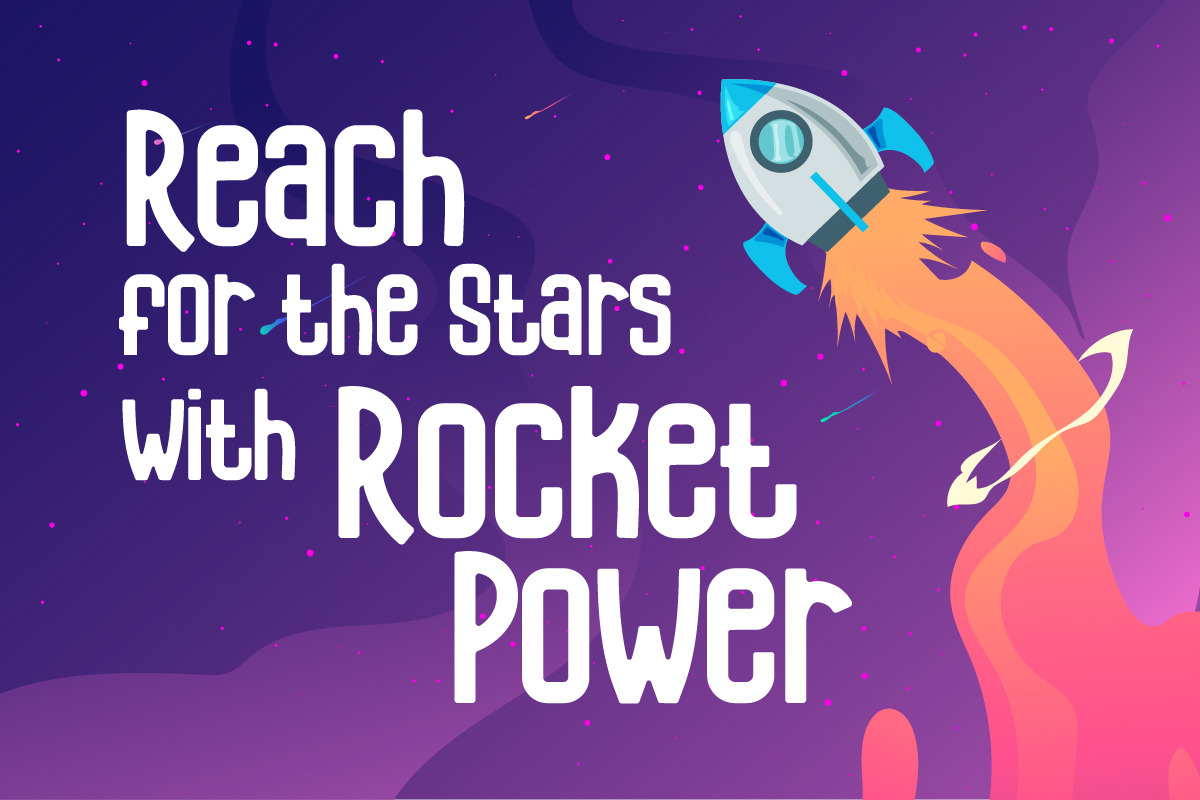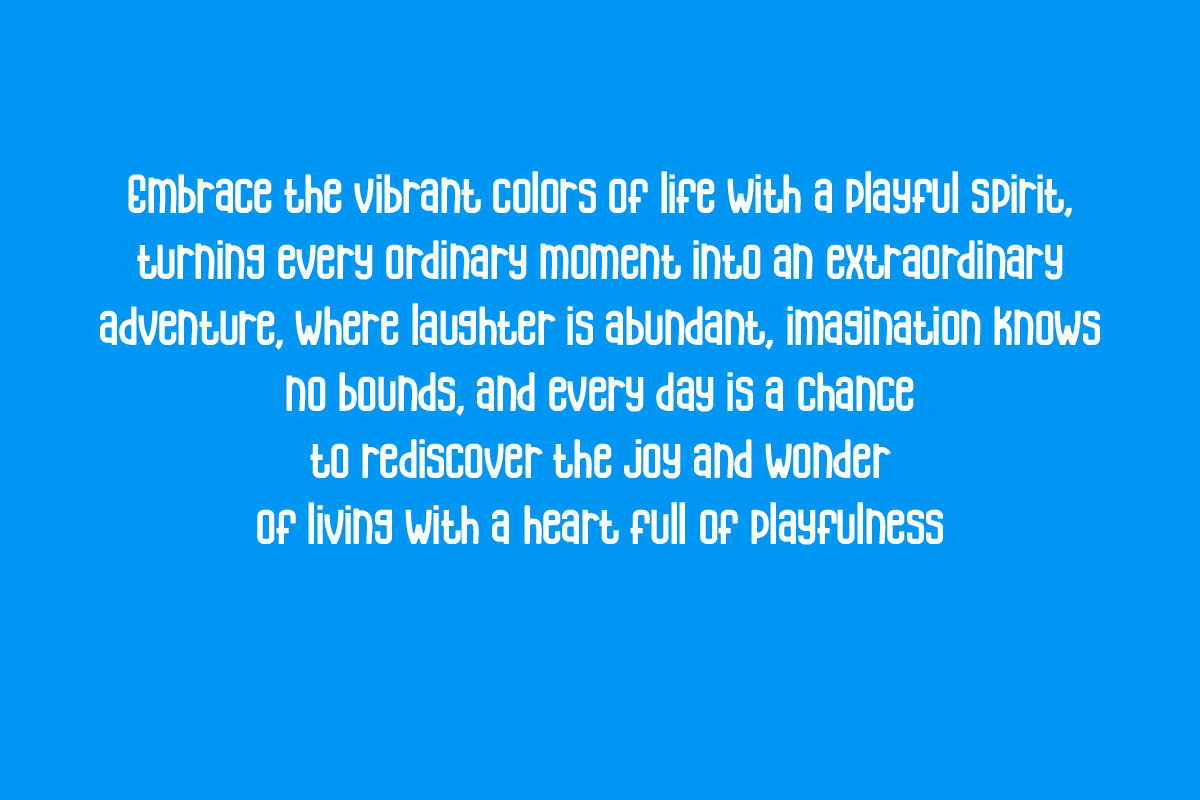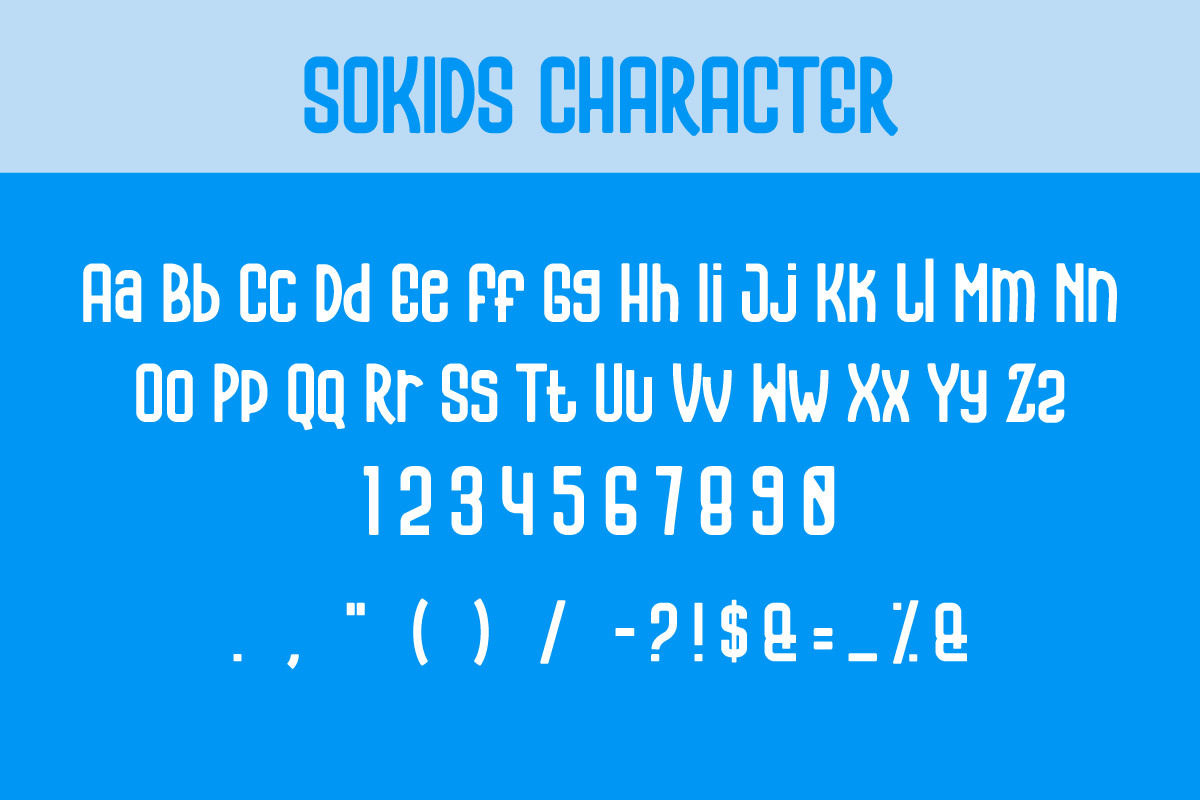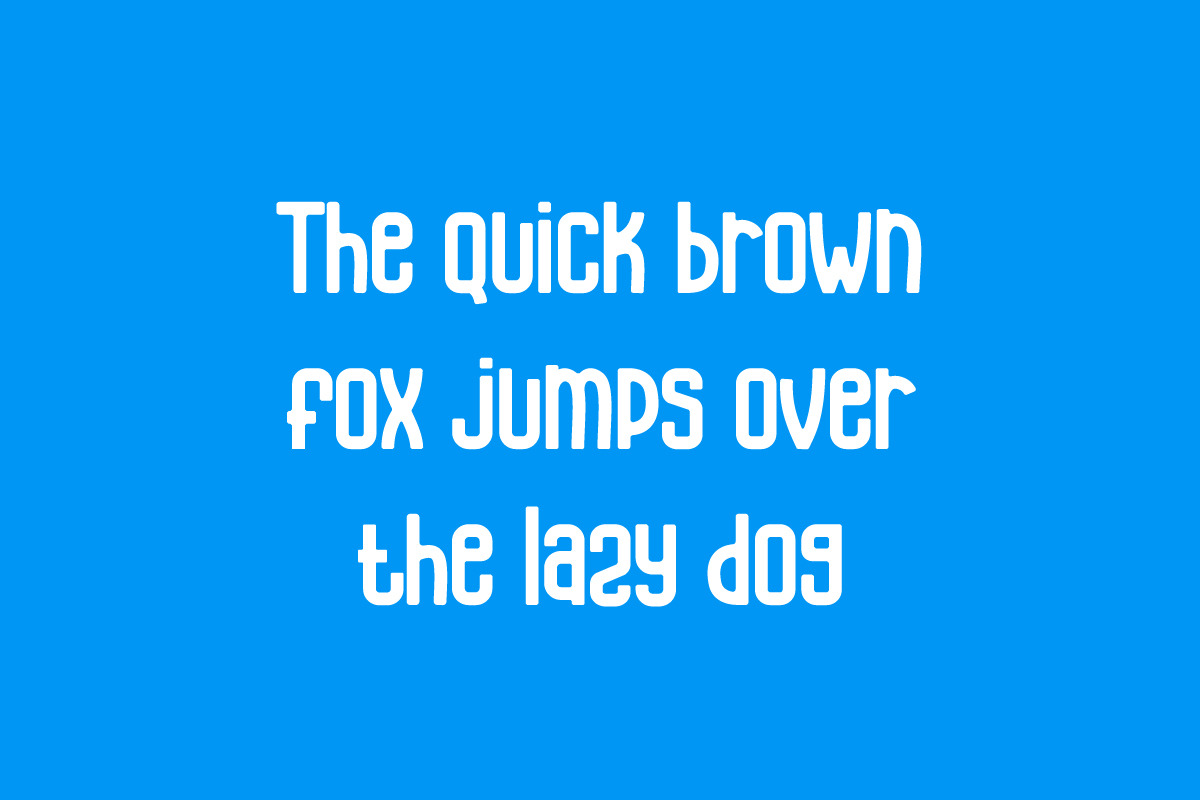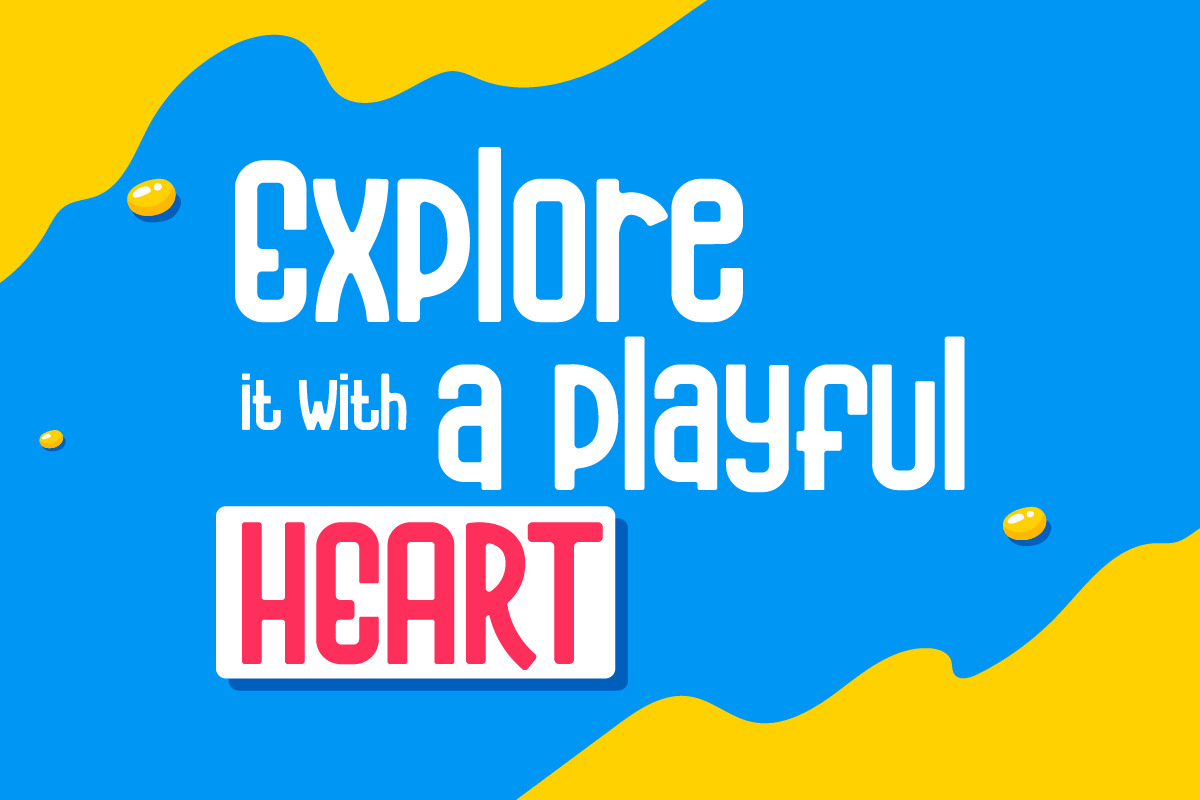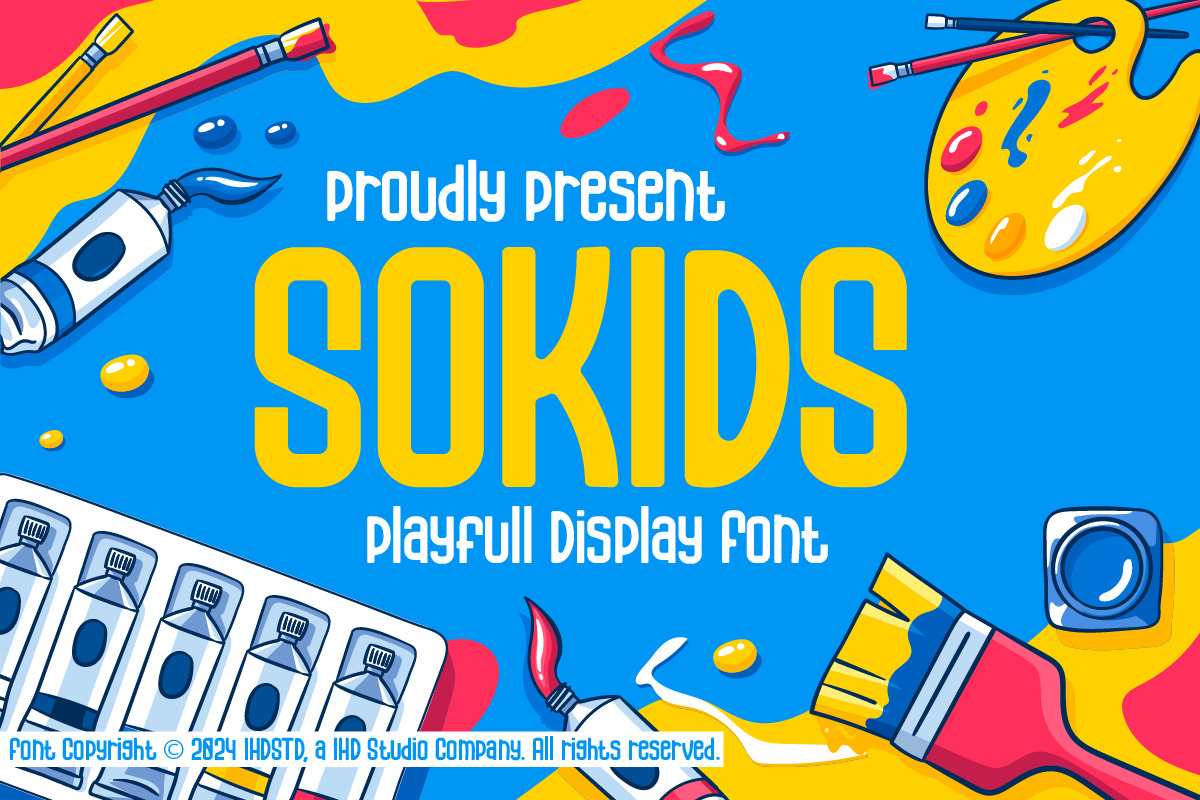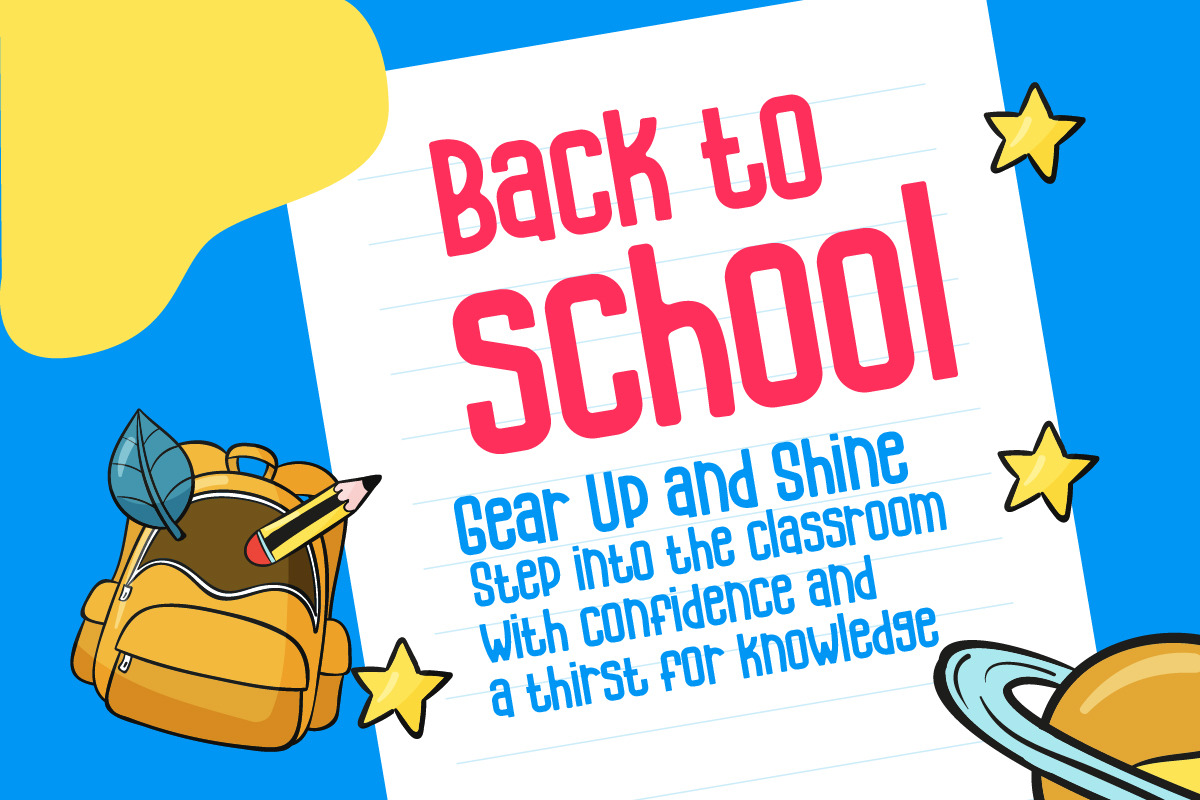
Sokids Playfull Display Font
Sokids Playfull Display Font is our new item suitable for your Posters.
Great for Logo, Poster, Sticker, Jerseys, Invitation Card, Brochure, etc.